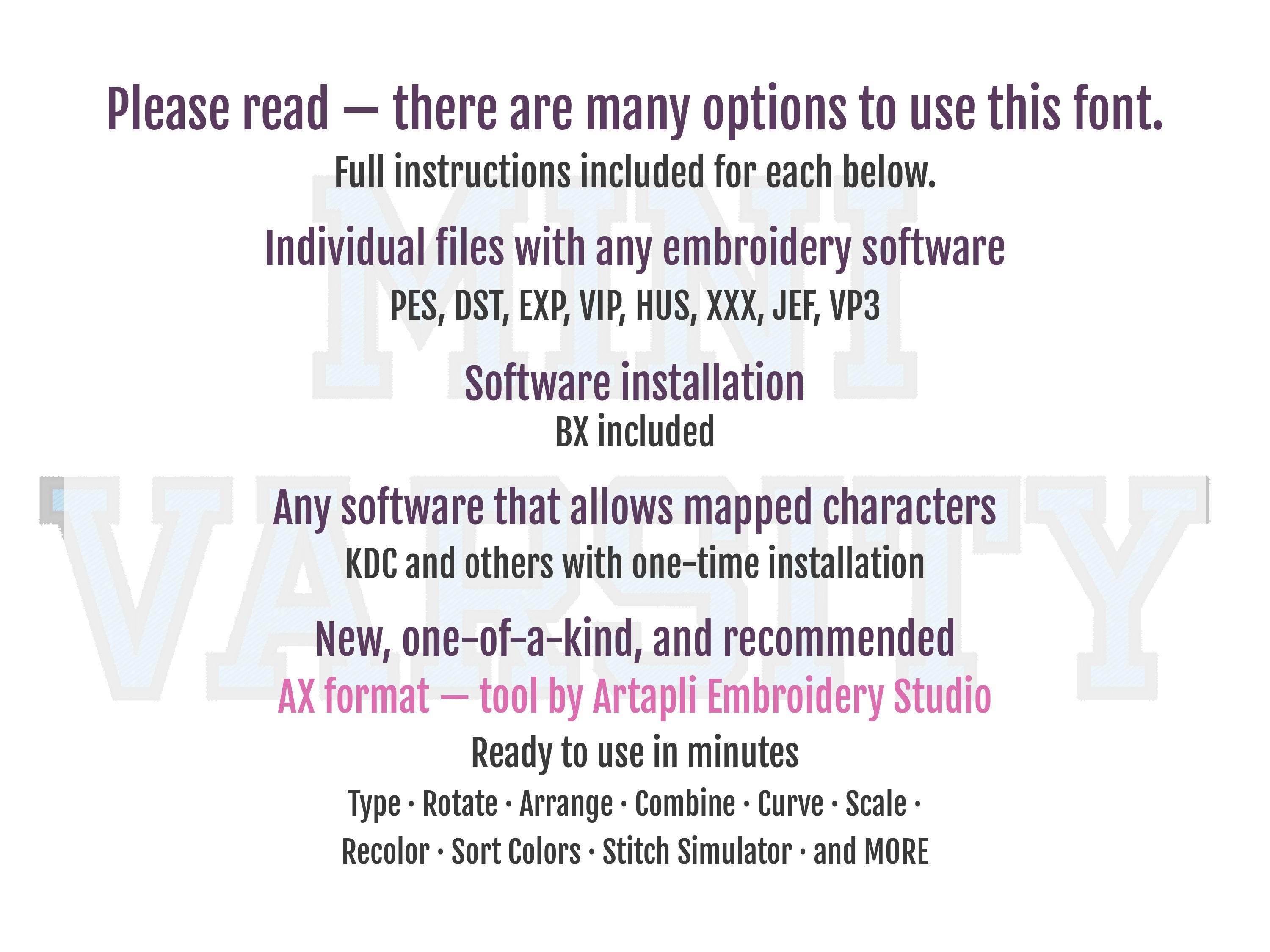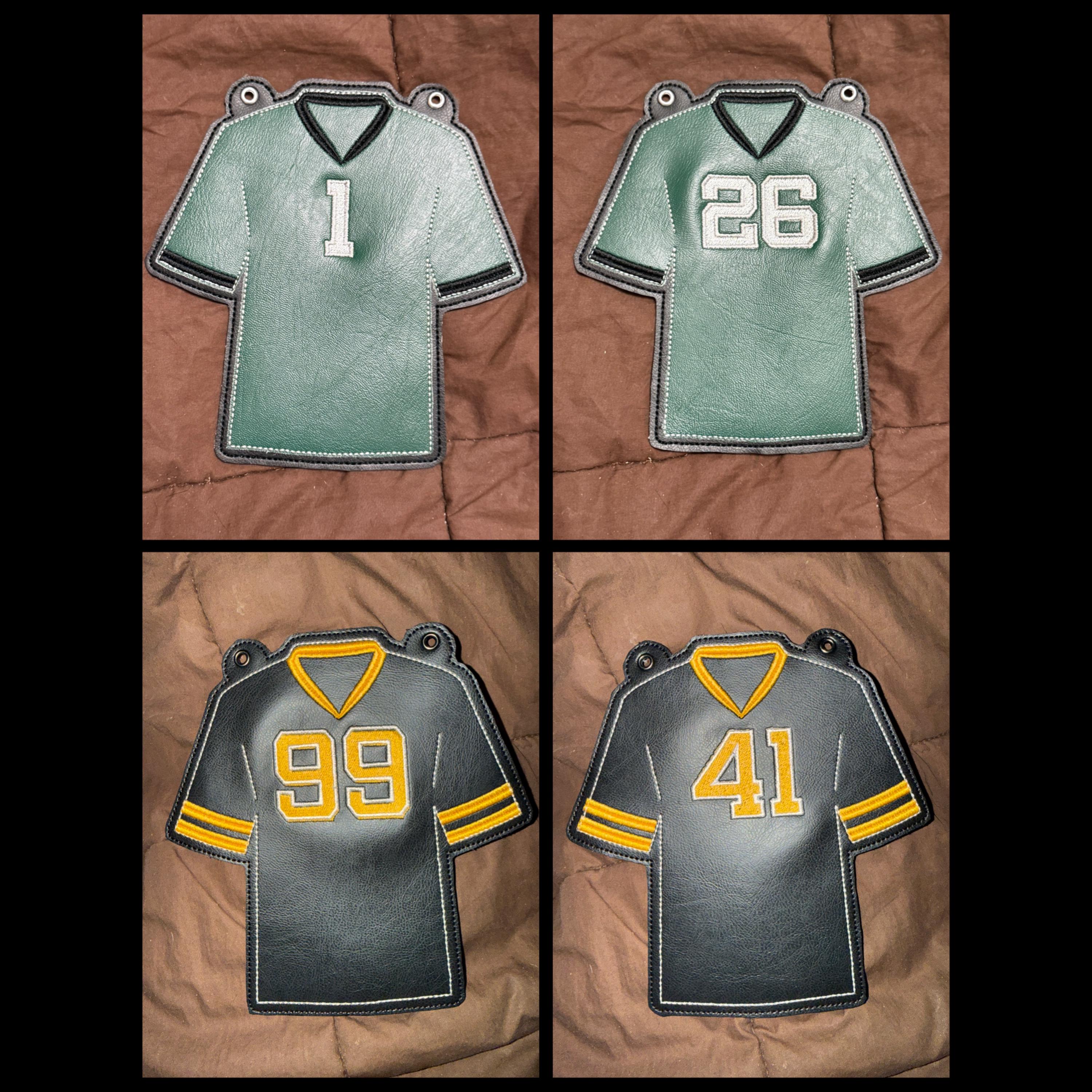
Mini Varsity Collegiate type Font machine embroidery designs - capital letters and numbers 2 colors fill stitch and outline alphabet, BX
Entire alphabet capital letters A-Z, and numbers 0-9.